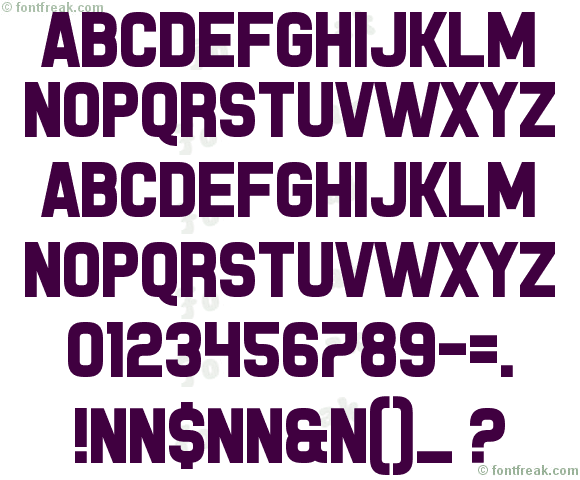
Piston Pressure
Piston Pressure is a striking display typeface designed by Andrew McCluskey, characterized by its bold, sans-serif style. This font stands out with its strong stroke weight and geometric forms, offering a modern yet robust aesthetic that captures attention. The visual characteristics include a uniform stroke with minimal contrast, giving it a solid appearance that is both impactful and versatile. The spacing is well-balanced, ensuring readability while maintaining a sense of dynamism.
Best suited for a variety of applications, Piston Pressure is ideal for movie posters, where its boldness can convey excitement and drama. It also works well for branding projects, particularly for companies in the automotive or industrial sectors, as the name suggests and complements the theme. Additionally, this typeface is perfect for creating eye-catching signage and promotional materials, making it an excellent choice for events or product launches. Graphic designers, small business owners, and content creators will find Piston Pressure an invaluable addition to their typography toolkit.
The target audience for this font includes professionals looking to make a strong visual statement in their designs. Whether for digital marketing, print media, or branding, Piston Pressure delivers a unique character that resonates with modern aesthetics.
What sets Piston Pressure apart is its ability to merge functionality with style. Its striking presence and solid construction make it memorable and effective in conveying messages. The Piston Pressure font free download allows users to harness this powerful design without any financial commitment, making it accessible for a wide range of creative projects. By incorporating this typeface into your work, you can elevate your designs and ensure they leave a lasting impression.